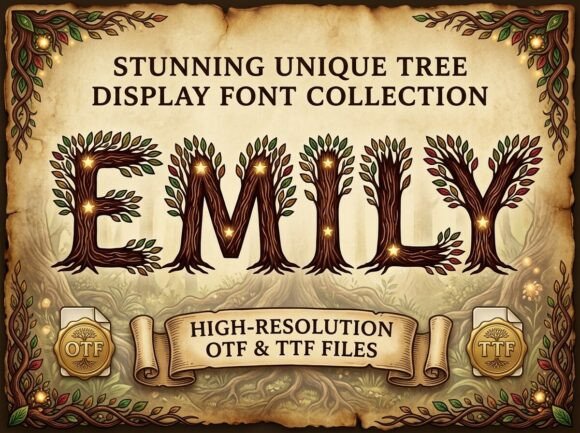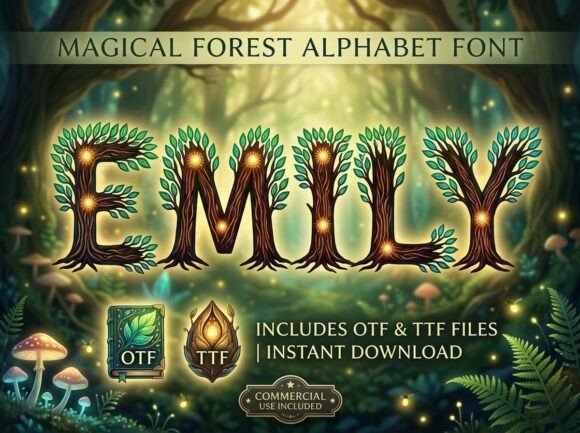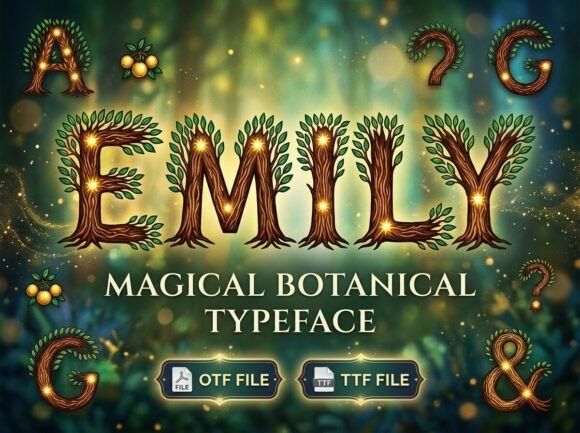
Introducing Emily Font: The Ultimate Display Font for Creative Projects
Are you tired of using the same old fonts for your designs? Look no further than Emily Font, a stunning decorative display font that’s sure to turn heads. With its unique artistic elements and strong visual personality, this font is perfect for creators who want to break away from the ordinary and make a statement.
Emily Font is designed to be the center of attention, featuring intricate details and creative letterforms that are sure to add an instant “wow” factor to any project. Whether you’re designing a modern poster, a unique brand identity, or eye-catching social media content, this font is the perfect choice. Its versatility makes it suitable for a wide range of applications, from bold headlines and artistic logos to creative packaging and more.
So, what can you use Emily Font for? The possibilities are endless! Here are some ideas to get you started:
Poster Design
Create headlines that people can’t look away from with Emily Font. Its bold and eye-catching design makes it perfect for posters, flyers, and brochures. Whether you’re promoting a concert, a sale, or a new product, this font is sure to grab attention and leave a lasting impression.
Branding & Logos
Build a unique identity for your creative business with Emily Font. Its artistic and creative vibe makes it perfect for logos, business cards, and other branding materials. Stand out from the competition and establish a strong visual identity that reflects your brand’s personality.
Apparel & Merch
Take your apparel and merchandise designs to the next level with Emily Font. Perfect for T-shirts, hoodies, tote bags, and more, this font adds a touch of creativity and sophistication to any design. Make your products stand out and appeal to customers who appreciate unique and artistic designs.
Social Media
Make your quotes and announcements stand out in the feed with Emily Font. Its bold and eye-catching design makes it perfect for social media graphics, including Facebook posts, Instagram captions, and Twitter headers. Get noticed and engage your audience with creative and visually appealing content.
Packaging
Give your products a premium feel with Emily Font. Its professional and polished finish makes it perfect for packaging designs, including labels, tags, and boxes. Add a touch of elegance and sophistication to your products and make them stand out on store shelves.
Key Features of Emily Font
So, what makes Emily Font so special? Here are some of its key features:
- Unique Artistic Elements: Emily Font features unique artistic elements that set it apart from other fonts.
- Strong Visual Personality: This font has a strong visual personality that demands attention and adds an instant “wow” factor to any project.
- Intricate Details: Emily Font features intricate details and creative letterforms that make it perfect for high-impact designs.
- Versatile: This font is versatile enough for a wide range of applications, from bold headlines and artistic logos to creative packaging and more.
- Professional and Polished Finish: Emily Font maintains a professional and polished finish, making it perfect for projects that require a touch of elegance and sophistication.
In conclusion, Emily Font is a stunning decorative display font that’s perfect for creators who want to break away from the ordinary and make a statement. With its unique artistic elements, strong visual personality, and intricate details, this font is ideal for high-impact designs where the typography needs to do the talking. Whether you’re designing a modern poster, a unique brand identity, or eye-catching social media content, Emily Font is the perfect choice. So why settle for ordinary fonts when you can make a statement with Emily Font?